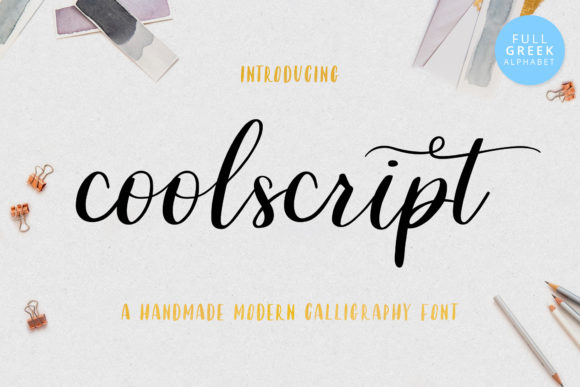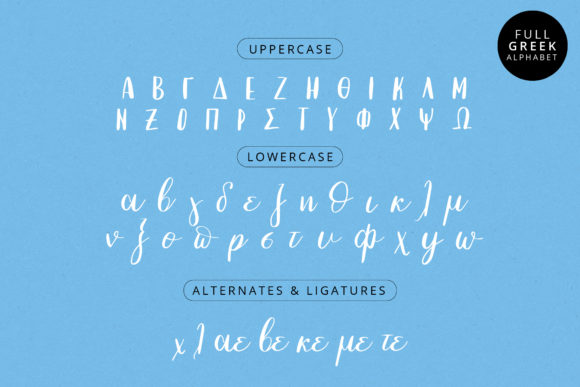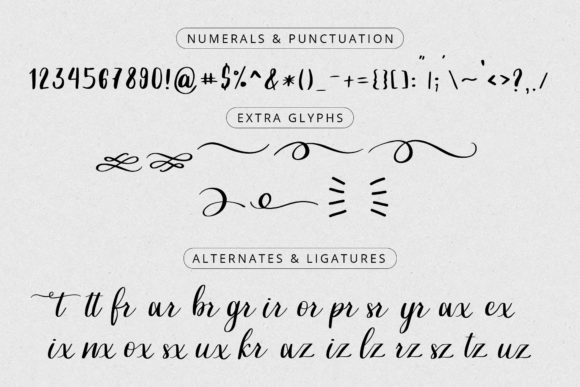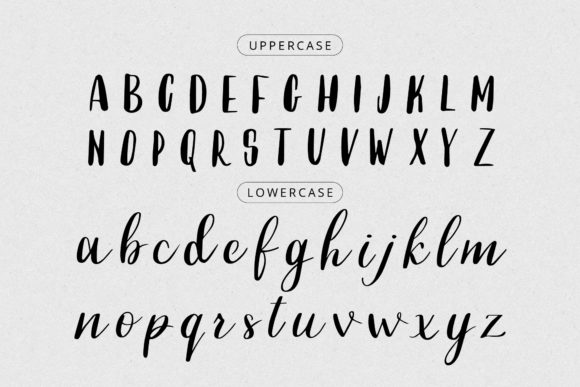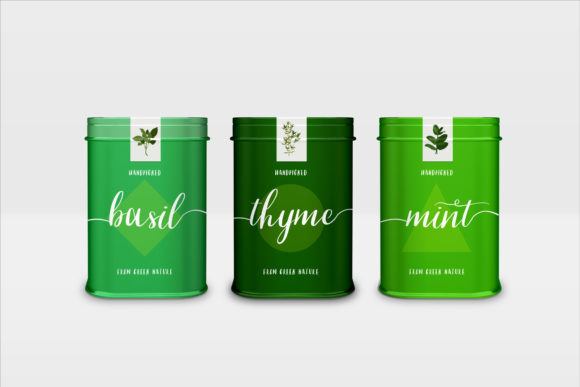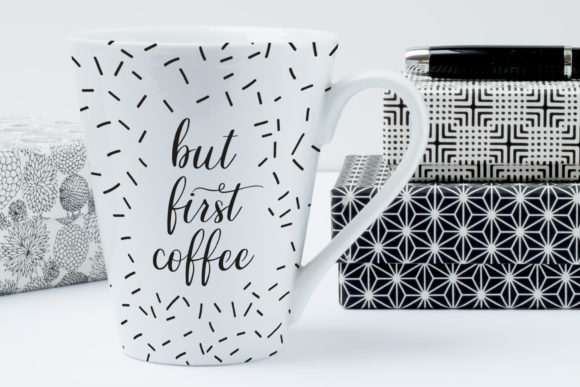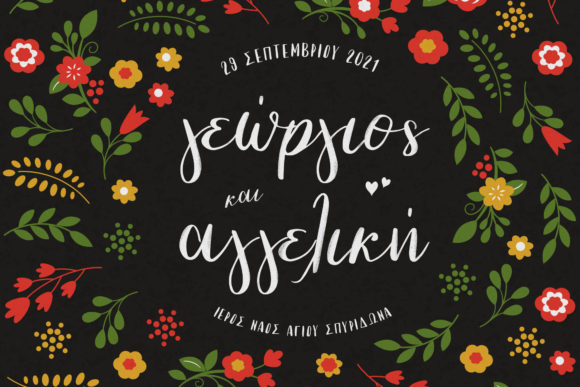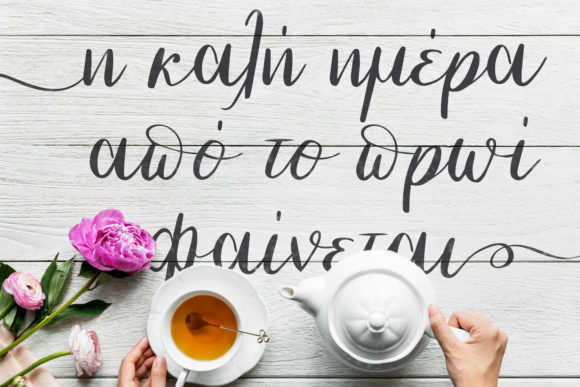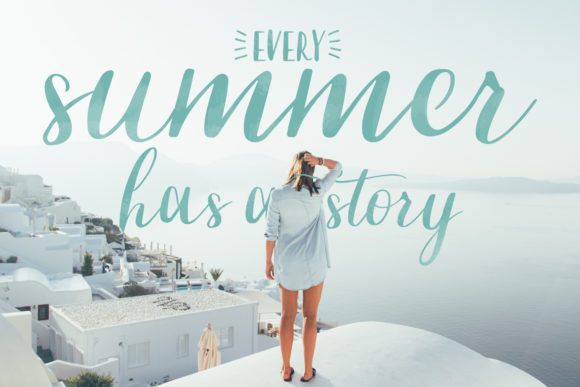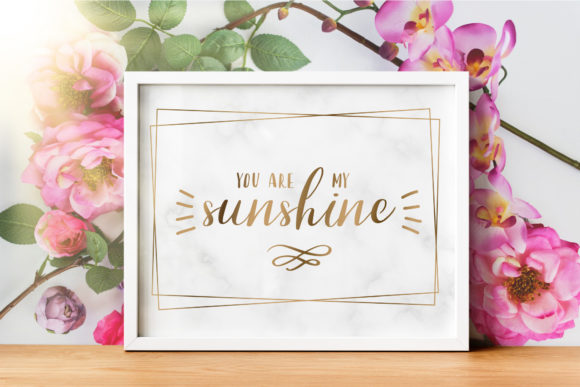
Coolscript Font
About Coolscript Font
Coolscript is a sweet and charming script with a cool twist. Fall in love with its unique style, and turn any design project into a true standout!